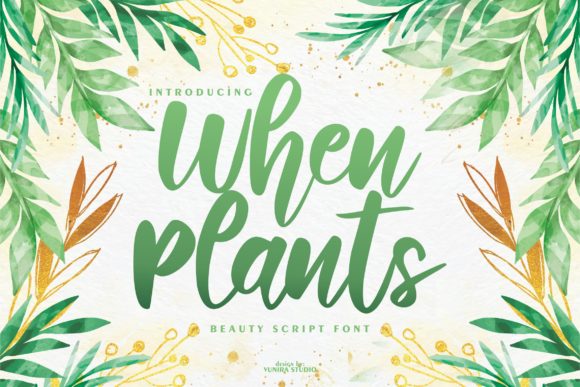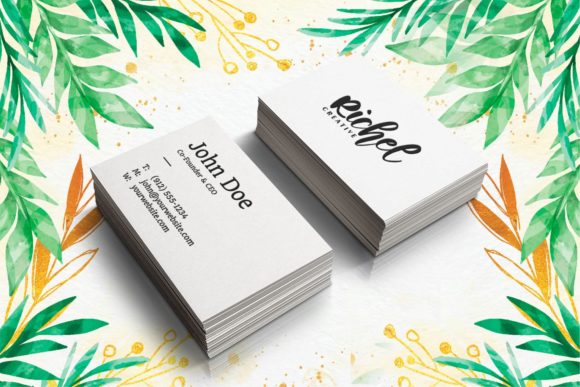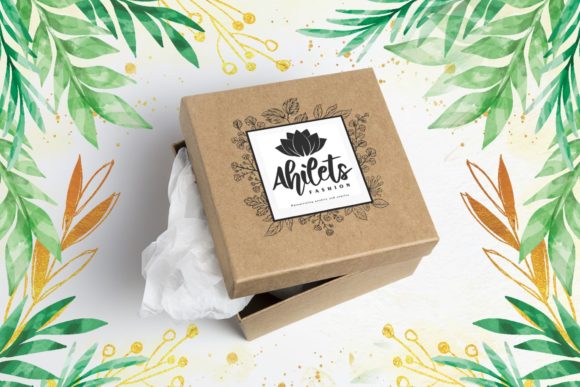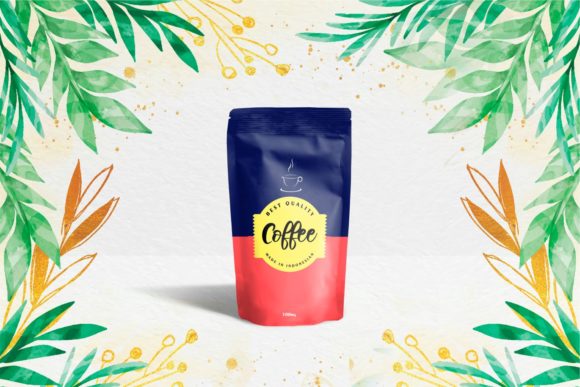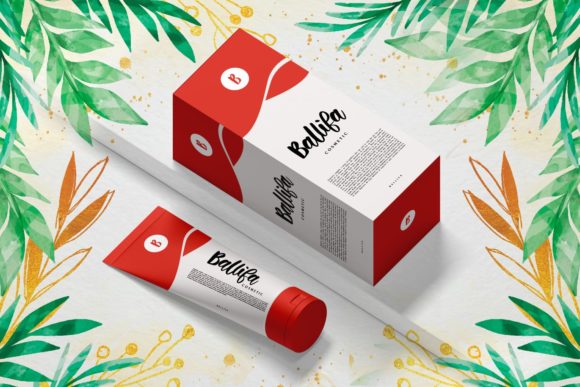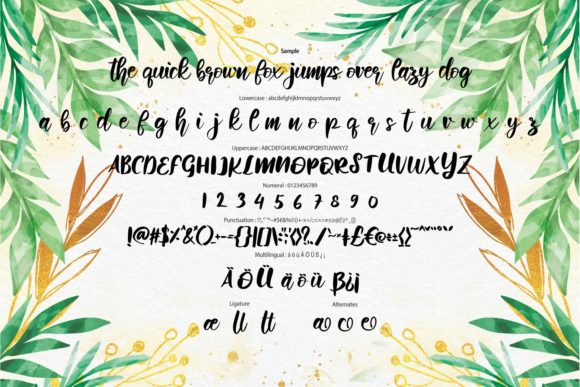
When Plants Font
When Plants is a captivating flowing handwritten font that exudes an elegant touch, making it the perfect choice for your favorite design projects. Its distinct and timeless style will undoubtedly capture your heart, inspiring you to create spectacular designs with ease and grace.
The font’s flowing nature adds a sense of movement and fluidity to your designs, creating an enchanting visual experience for your audience. Whether it’s crafting greeting cards, designing social media graphics, or adding a personal touch to your website, When Plants brings a touch of charm to every project.
Fall in love with the font’s incredibly distinct style that sets it apart from ordinary typefaces. Its unique handcrafted essence adds a level of authenticity and artistry to your creations, making them truly special and one-of-a-kind.
The elegance of When Plants makes it a versatile option for a wide range of design endeavors. Whether you’re working on wedding invitations, elegant logos, or refined branding materials, this font effortlessly elevates your projects to a new level of sophistication.
With When Plants at your disposal, you can infuse your designs with a sense of timelessness. Its classic handwritten style transcends trends, ensuring that your creations remain relevant and beautiful for years to come.
The font’s readability and legibility are equally impressive, making it a joy to read and interact with. Whether it’s a long-form text or a short and sweet message, When Plants conveys your words with clarity and grace.
Moreover, When Plants inspires creativity and unleashes your design potential. Its elegant and flowing strokes encourage experimentation, empowering you to explore different design compositions and discover new artistic expressions.
In summary, When Plants is more than just a font; it’s an artistic companion that ignites your passion for design. Its flowing handwritten style, elegant touch, and timeless essence bring magic to your favorite projects. Fall in love with the beauty of When Plants, and let it be the brush that paints your designs into spectacular works of art, captivating hearts and leaving a lasting impression on all who encounter them.